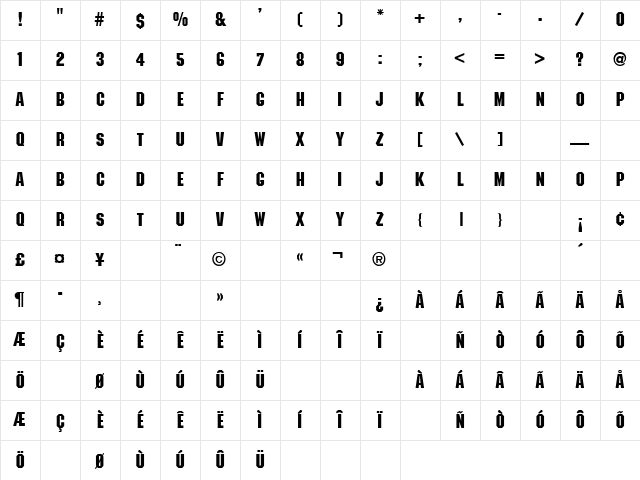
Machine Light Free Font
Machine Light
Design Context for Machine
Machine is a composed and adaptable typeface that performs quietly and consistently across a wide range of design contexts. Its slender proportions lend an understated elegance to any composition.
Pro Tip: Use Machine in both headline and body roles to test its range before committing to a single application.